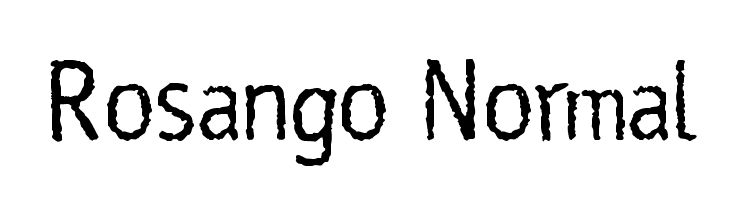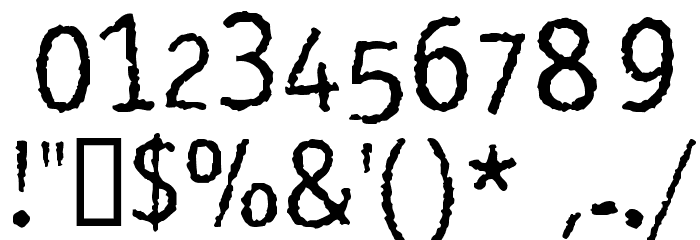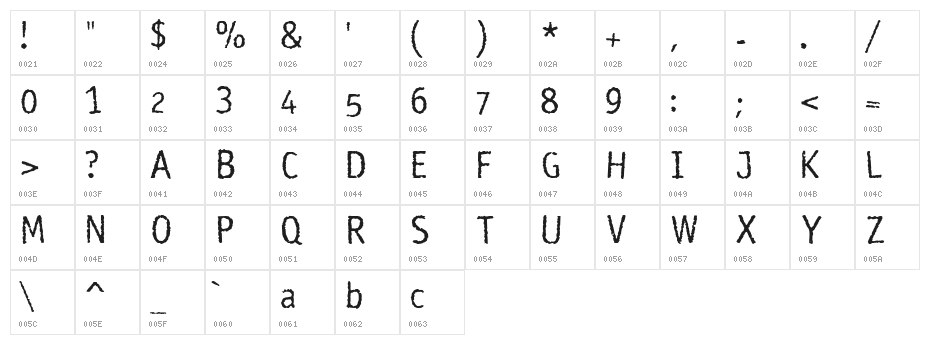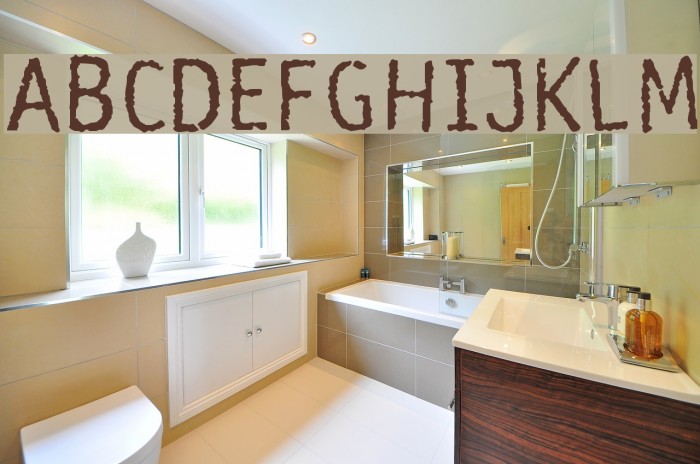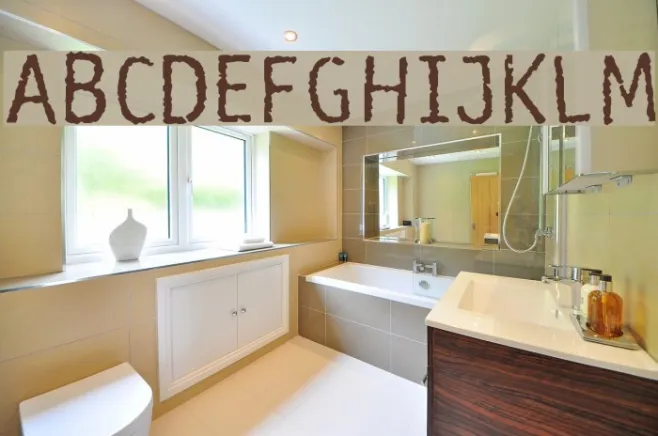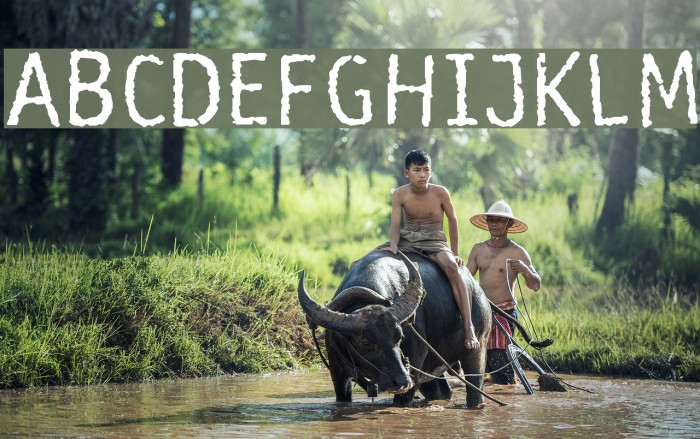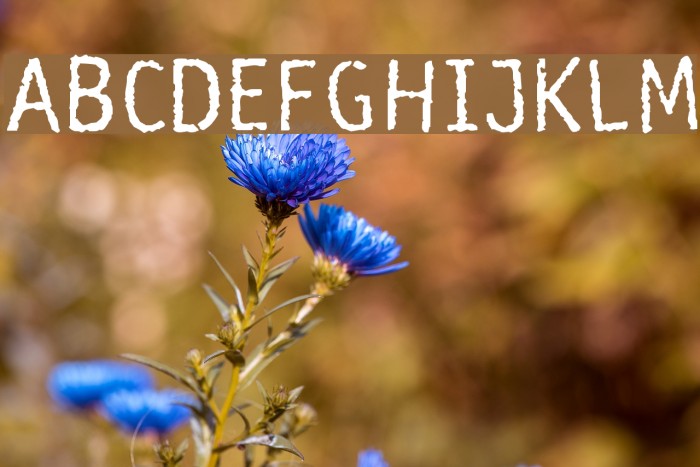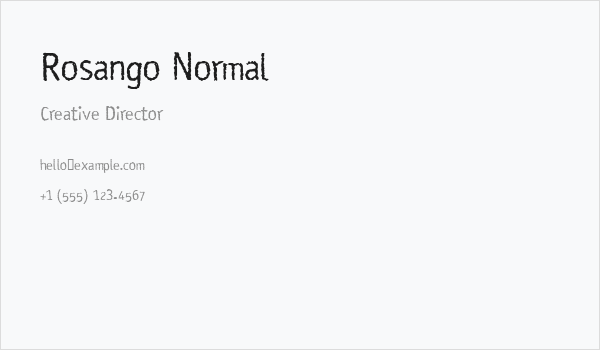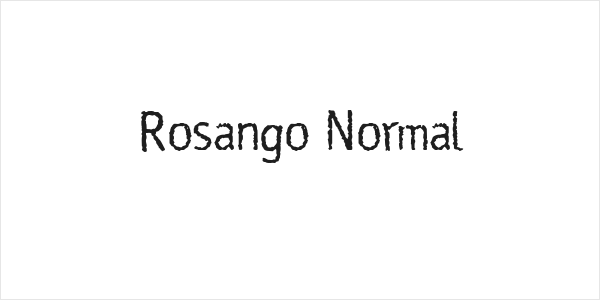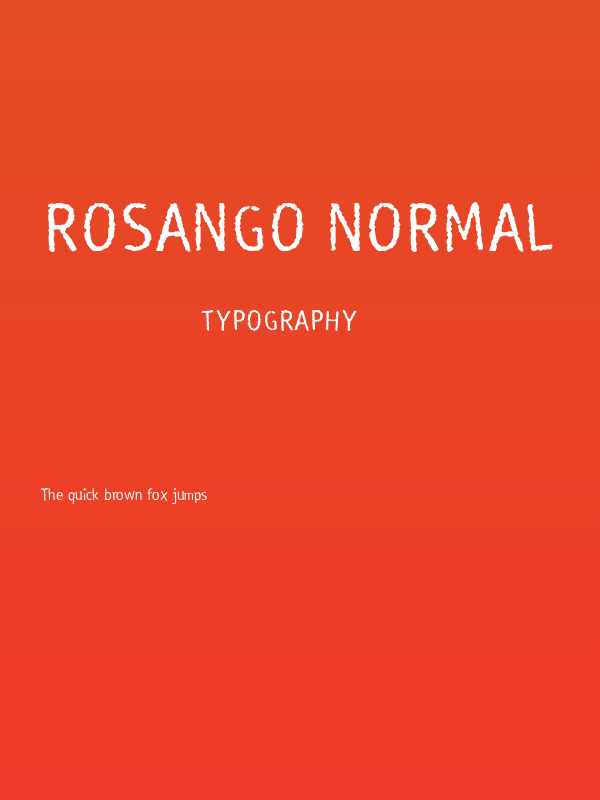
Rosango Normal Font
Rosango Normal Description
This font features a distinctive, textured appearance that mimics the look of hand-drawn or stamped letters. The characters have a slightly irregular edge, giving them a rustic and organic feel. The uppercase and lowercase letters maintain a consistent style, with rounded edges and a moderate weight that ensures readability. The numerals and special characters follow the same design principles, making the font versatile for various uses. Its unique style is both playful and artistic, suitable for projects that require a personal touch.
| Proposed Projects | Ideal for creative projects such as invitations, posters, branding, and packaging that require a personal and artistic touch. |